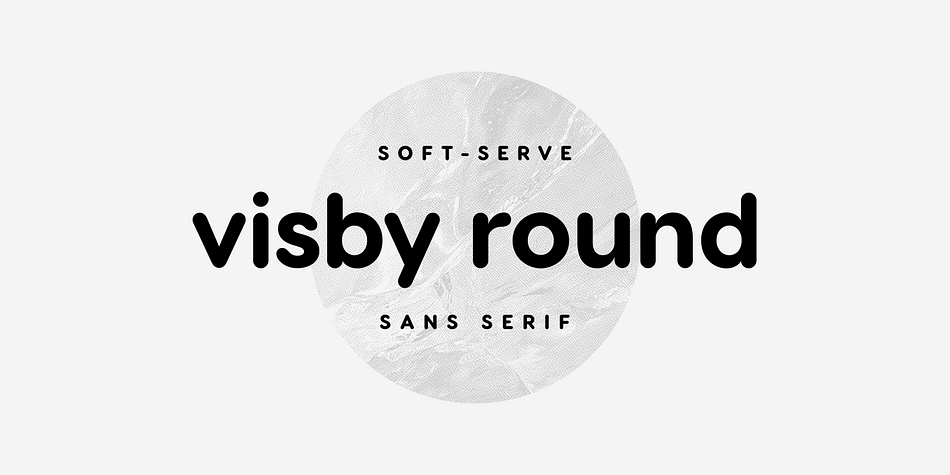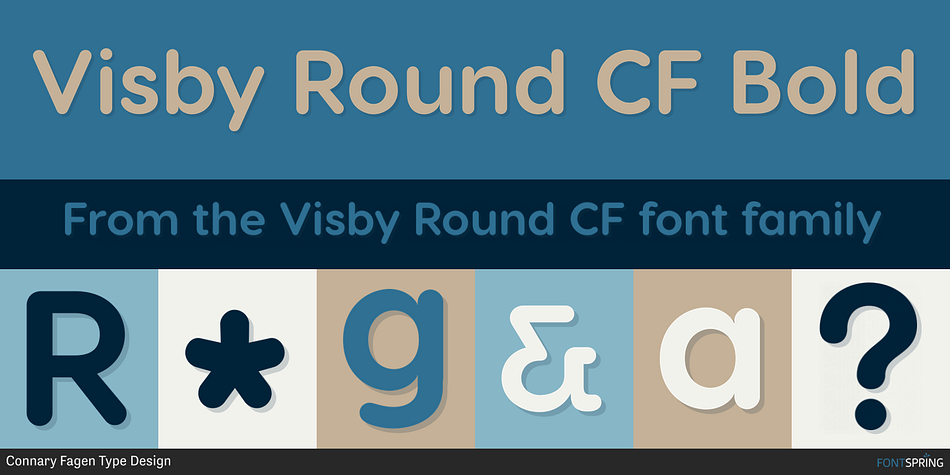
Visby Round CF Bold
Visby Round CF is a sans serif font family. This typeface has sixteen styles and was published by Connary Fagen Type Design.
Visby Round takes the charismatic forms of its older sibling and softens them, creating a friendly, fresh new look. Perfect anywhere you need a little smooth goodness.